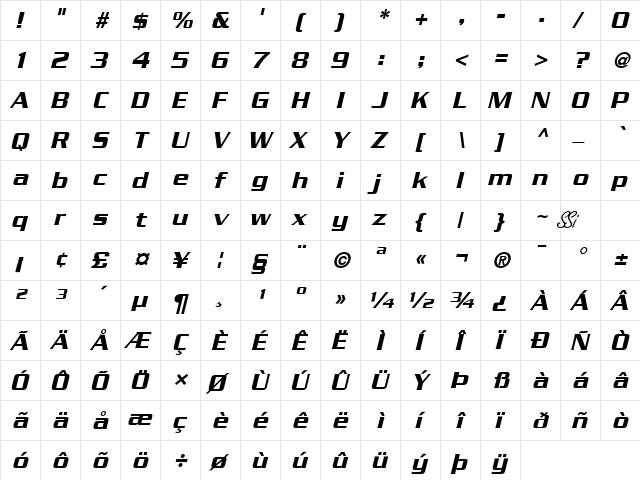
Boost SSi Italic
Design Context for Boost SSi Typeface
Boost SSi is a composed and adaptable typeface that performs quietly and consistently across a wide range of design contexts. The slanted form adds forward momentum and visual energy.
Pro Tip: Try Boost SSi for annotation and caption copy alongside an upright companion — the contrast in angle creates a dynamic but ordered typographic system.